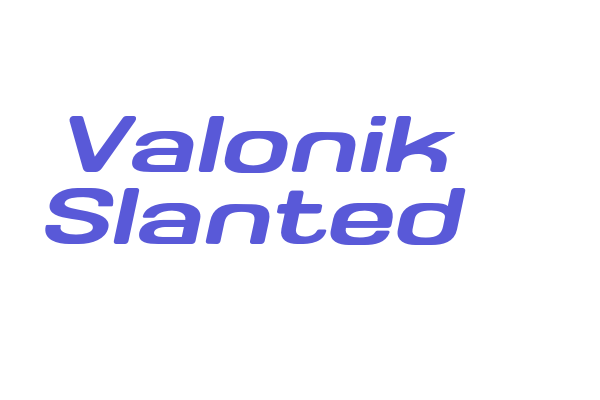
Valonik Personal Use Slanted is a basic sans serif font in the Valonik Personal Use font family designed by Hakim. The slanted style of this font adds a modern and dynamic touch to any design. Ideal for headings, logos, and branding projects that require a sleek and contemporary look.
Font Name: Valonik Slanted
Designer: Hakim
Font Family: Valonik Slant